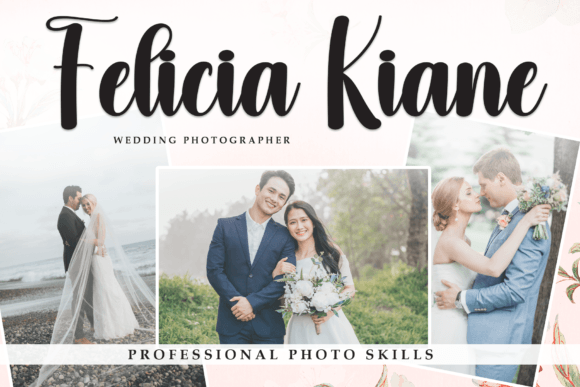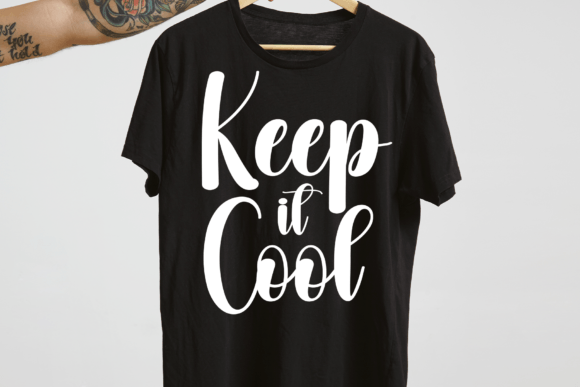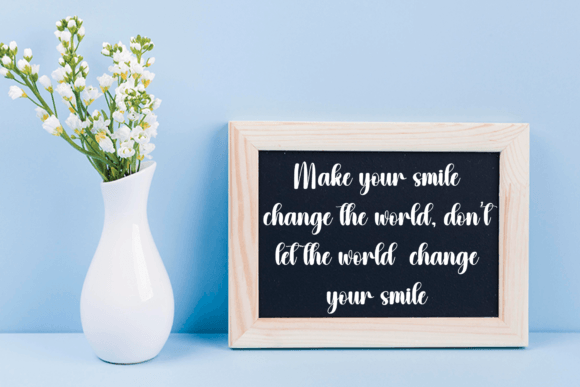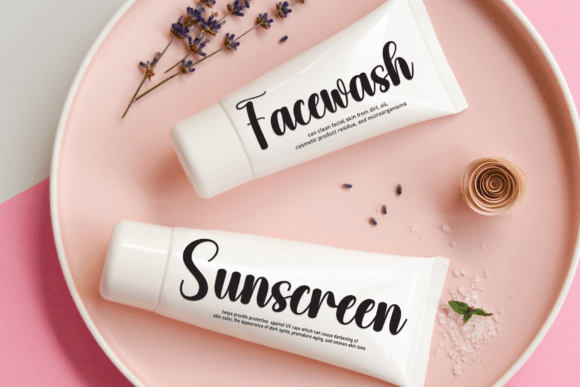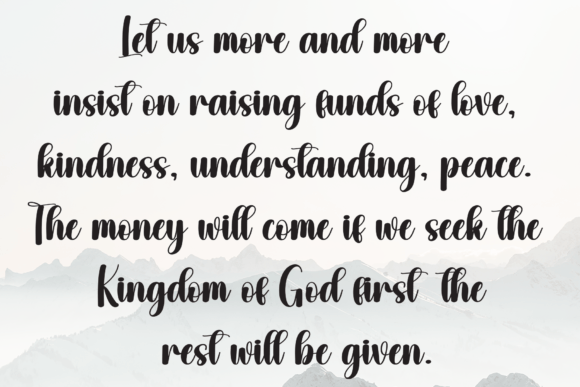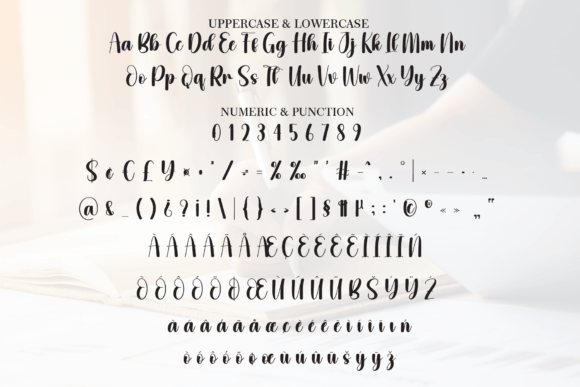
Introduction to Screenplay Font
Have you ever found yourself sitting in a dimly lit cinema, completely immersed in a captivating story that unfolds on the screen? The magic of storytelling is something that has captivated audiences for centuries, and for designers, it’s an opportunity to bring that magic to life through creative projects. Whether you’re working on a movie title, theatrical poster, or script, the right font can make all the difference.
Enter Screenplay Font, a charming and elegant script and handwritten typeface that embodies the art of storytelling. With its flowing lines and authentic handcrafted feel, this high-quality font is perfect for designers looking to add a touch of dramatic flair to their projects. Whether you’re working on a creative project or need a design resource for your next big idea, Screenplay Font is an invaluable asset that’s sure to elevate your work to the next level.
Key Features of Screenplay Font
- Designed with a unique, stylized aesthetic that sets it apart from standard fonts, adding a creative touch to your projects.
- Perfect for use in graphic design, video editing, and other creative fields where a high-quality, custom font is desired.
Honest Review: Screenplay Font
I recently stumbled upon the Screenplay Font while searching for a high-quality design resource for my creative project. As a designer, I was excited to give it a try, and I must say it’s been a pleasant experience.
- ✨ High-quality design: The font is well-crafted, with a clear and elegant script that adds a touch of sophistication to any text.
- ⚠️ Limited font styles: Compared to other screenplay fonts, this one has a relatively limited selection of styles, which might not be ideal for complex design projects.
- ⚠️ Not ideal for body text: While the font looks great for titles and headings, it might not be the best choice for large blocks of body text due to its decorative nature.
Overall, I’m impressed with the Screenplay Font’s design quality and ease of use. While it may not be perfect for every project, it’s a solid addition to any designer’s toolkit, especially for those working on creative projects that require a touch of elegance. If you’re looking for a free download that won’t break the bank, this font is definitely worth checking out.
Tips for Getting the Most Out of Screenplay Font
To get the most out of Screenplay Font, experiment with different font sizes, colors, and combinations to find the perfect look for your creative project. You can also use it in conjunction with other design elements, such as graphics and images, to create a visually appealing design.
Common Use Cases for Screenplay Font
Screenplay Font is commonly used in a variety of creative projects, including graphic design, presentations, and social media posts. It’s perfect for anyone looking for a high-quality, free font to use in their design work.